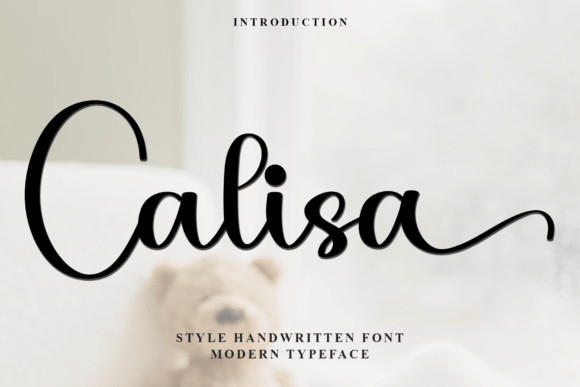
Introducing Calisa Font: The Sweet and Friendly Typographic Delight
When it comes to selecting the perfect font for a design project, the options can be overwhelming. However, if you’re looking for a typeface that exudes warmth, friendliness, and a touch of uniqueness, look no further than Calisa Font. This delightful font has been making waves in the design community, and for good reason. Calisa is a sweet and friendly font that boasts a natural and unique style, making it incredibly fitting for a wide range of designs. The only limit to its versatility is your imagination!
What Makes Calisa Font So Special?
Calisa Font is distinguished by its organic and approachable feel. Its characters are designed with a sense of warmth and personality, making it perfect for projects that require a human touch. Whether you’re working on a branding campaign, a website, or marketing materials, Calisa can help you connect with your audience on a more personal level.
- Unique Style: Calisa’s design is unlike many other fonts available today. Its unique style sets it apart and makes it an excellent choice for designers looking to add a distinctive touch to their work.
- Natural Look and Feel: The font’s natural appearance makes it highly versatile and suitable for a variety of applications, from digital media to print.
- Wide Range of Applications: From elegant headings to friendly body text, Calisa can be used in numerous contexts, limited only by your creativity.
Exploring the Versatility of Calisa Font
One of the most significant advantages of Calisa Font is its versatility. Its sweet and friendly demeanor makes it suitable for a broad spectrum of design projects. Here are some areas where Calisa truly shines:
- Branding and Logos: Create a memorable brand identity with Calisa. Its unique and friendly appearance can help your brand stand out and feel more approachable to your target audience.
- Web Design: Enhance your website’s user experience with Calisa. Its readability and warm feel make it an excellent choice for both headings and body text.
- Marketing Materials: From brochures to flyers, and from business cards to billboards, Calisa can add a personal touch to your marketing materials, making them more engaging and effective.
- Packaging: Make your product packaging more appealing with Calisa. Its natural and friendly style can help your product stand out on the shelves.
Typography and Readability
When it comes to typography, readability and aesthetics are paramount. Calisa Font excels in both areas. Its well-designed characters and balanced spacing ensure that text is easy to read, even at smaller sizes. This makes it not only a beautiful addition to your design but also a practical one.
Moreover, Calisa’s typographic features include:
- Clear Letterforms: Each letter is carefully designed to be distinct and recognizable, ensuring clarity and readability.
- Balanced Spacing: The font’s spacing is optimized for readability, making it suitable for long blocks of text as well as short headings.
- Support for Multiple Languages: Calisa offers support for various languages, making it a versatile choice for global brands and projects.
Unlocking Your Creativity with Calisa Font
The true power of Calisa Font lies not just in its inherent qualities but in the creative possibilities it unlocks. Here are some ideas to get you started:
- Experiment with Colors: Combine Calisa with a vibrant color palette to create eye-catching designs.
- Play with Textures: Add a tactile element to your designs by incorporating textures that complement Calisa’s natural feel.
- Mix and Match Fonts: Don’t be afraid to pair Calisa with other fonts to create contrast and hierarchy in your designs.
In conclusion, Calisa Font is a sweet and friendly typeface that brings a unique and natural style to the world of typography. Its versatility, readability, and aesthetic appeal make it an excellent choice for a wide range of design projects. Whether you’re a seasoned designer or just starting out, Calisa can help you create memorable and engaging designs that resonate with your audience. So why wait? Unlock your creative potential with Calisa Font today and discover the difference it can make in your work.